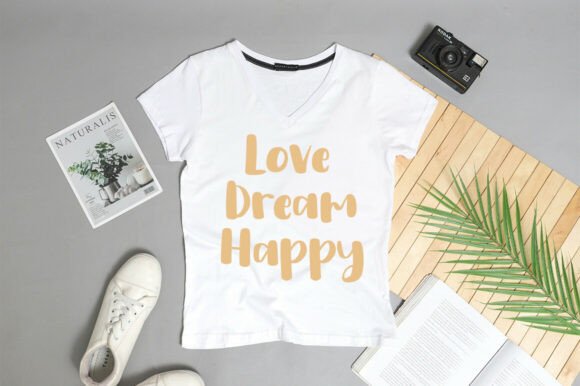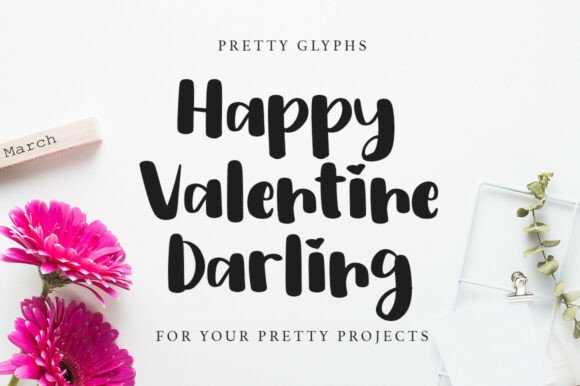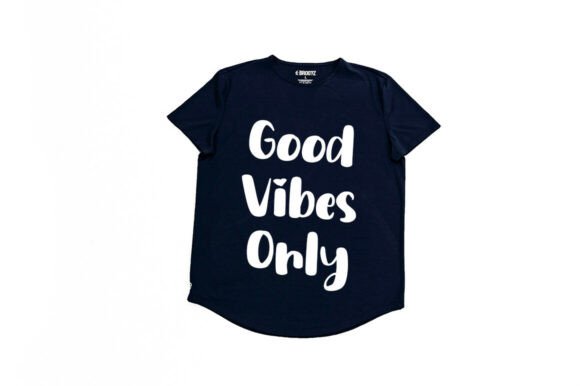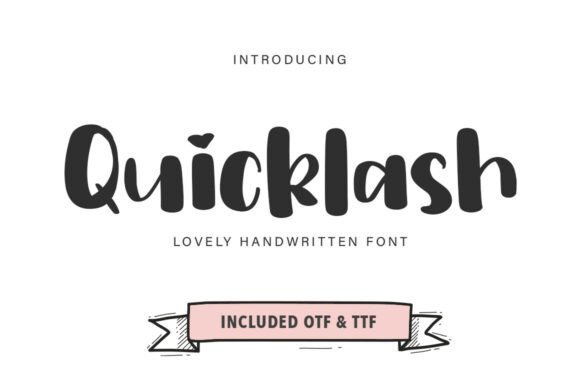
Introduction to Quicklash Font
Quicklash Font is a bold, bubbly, and incredibly โ€œchunkyโ€ handwritten typeface that feels fast-paced and full of life.
This Quicklash typeface features thick, rounded strokes and tightly packed letterforms that give it a high-visual density, perfect for catching the eye from a distance The Quicklash font is all about presenceโ€”itโ€™s heavy, itโ€™s fun, and it doesnโ€™t apologize for taking up space, making it a dream for bold headlines and statement pieces.